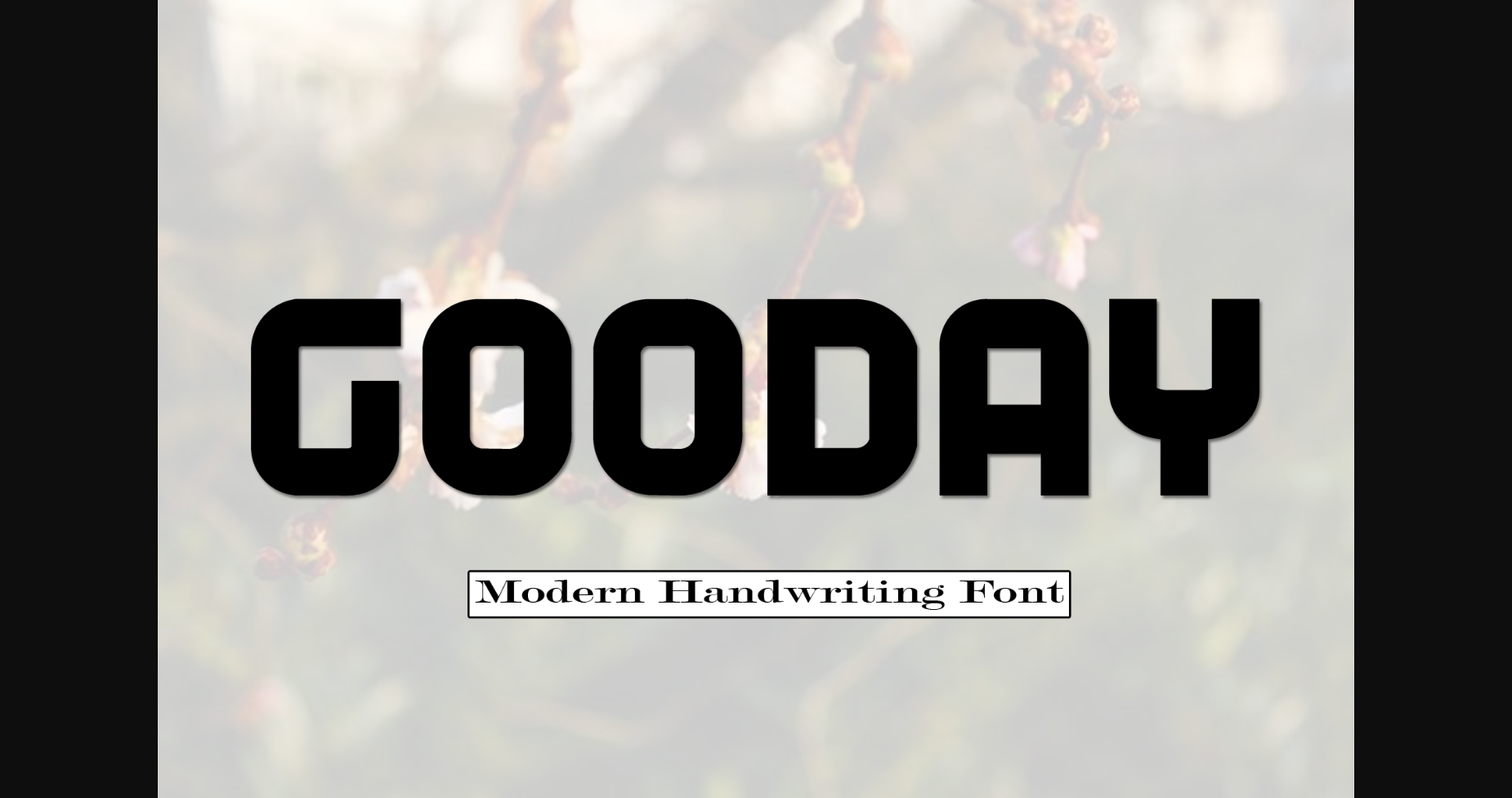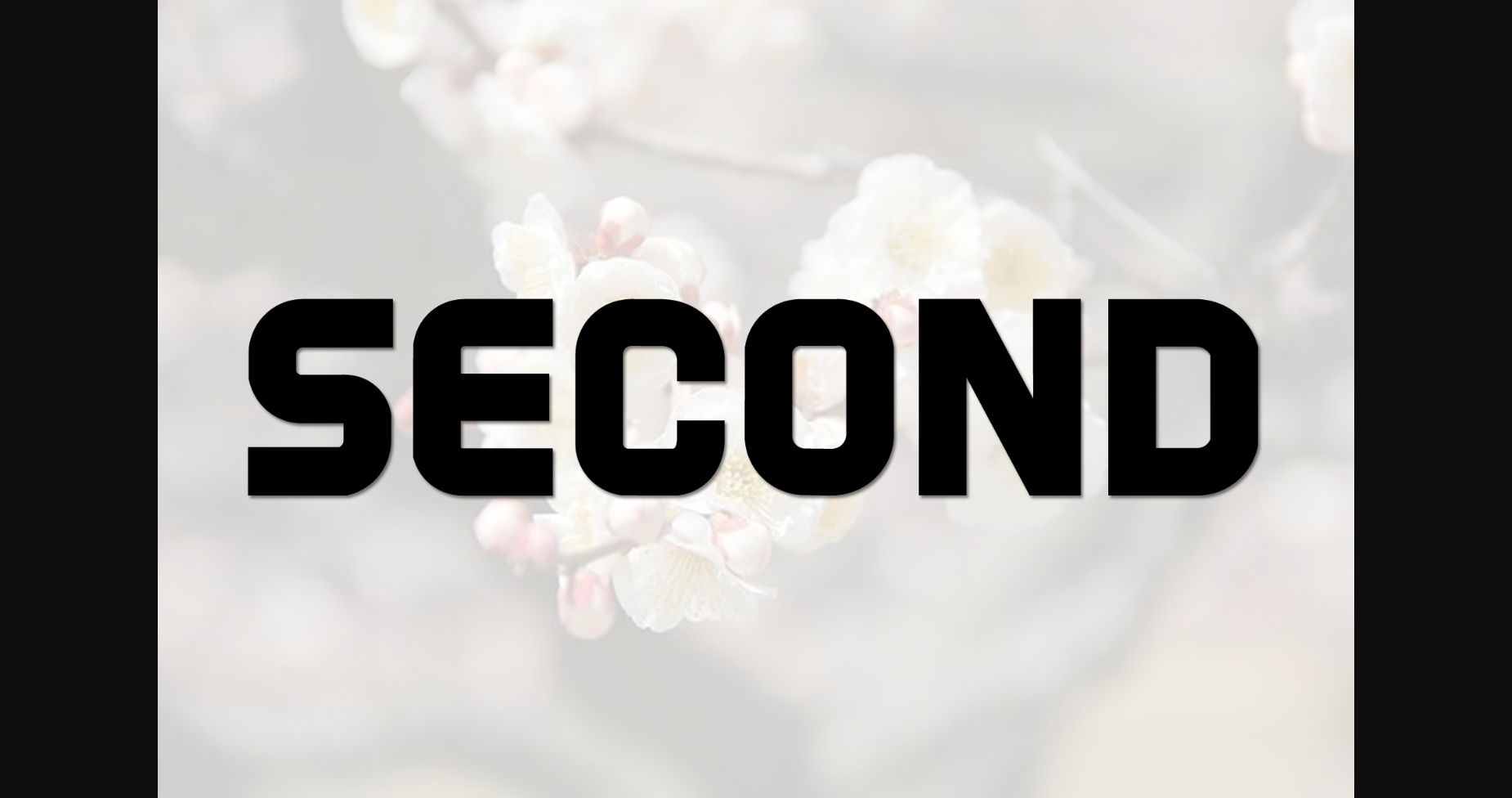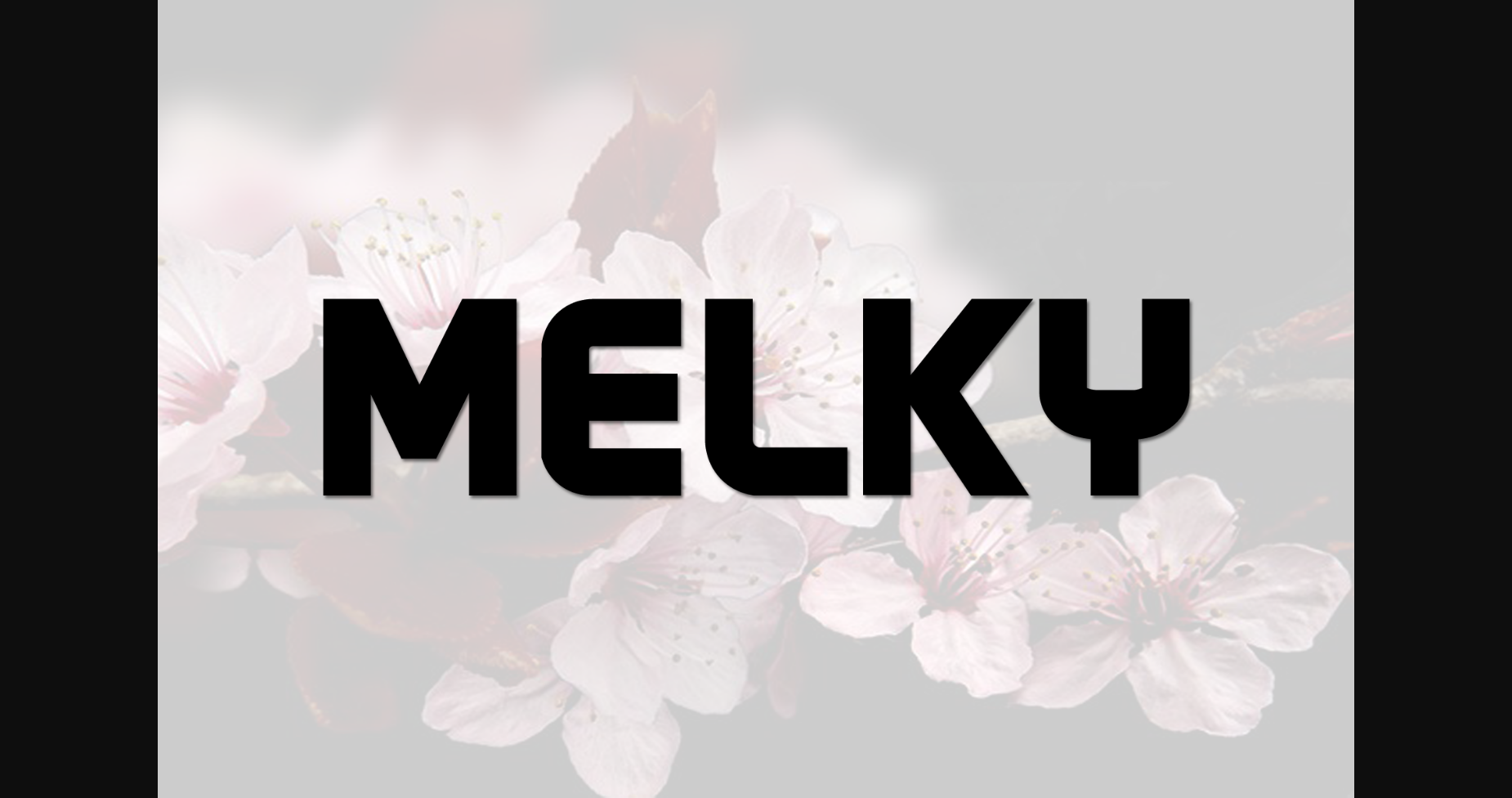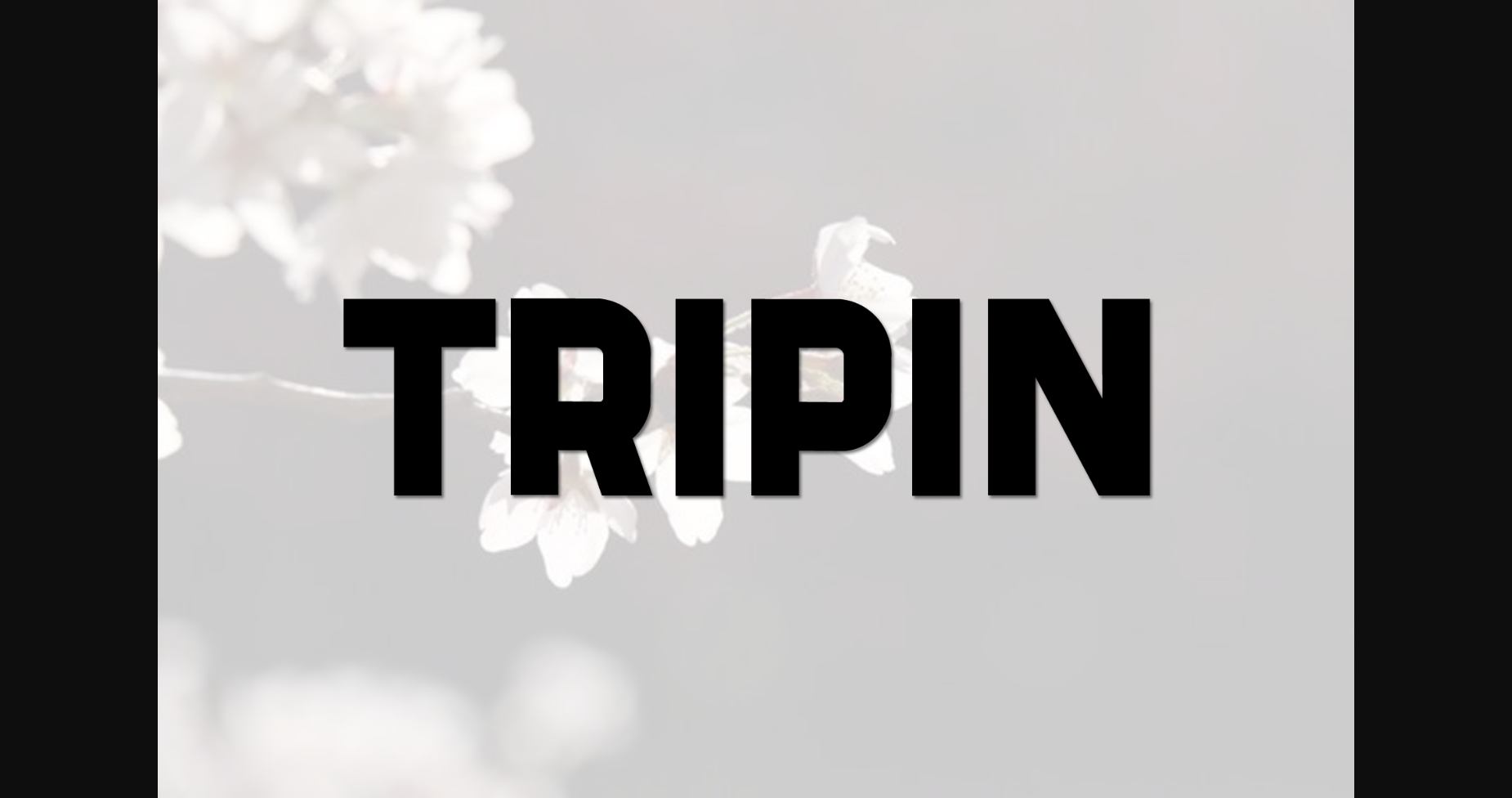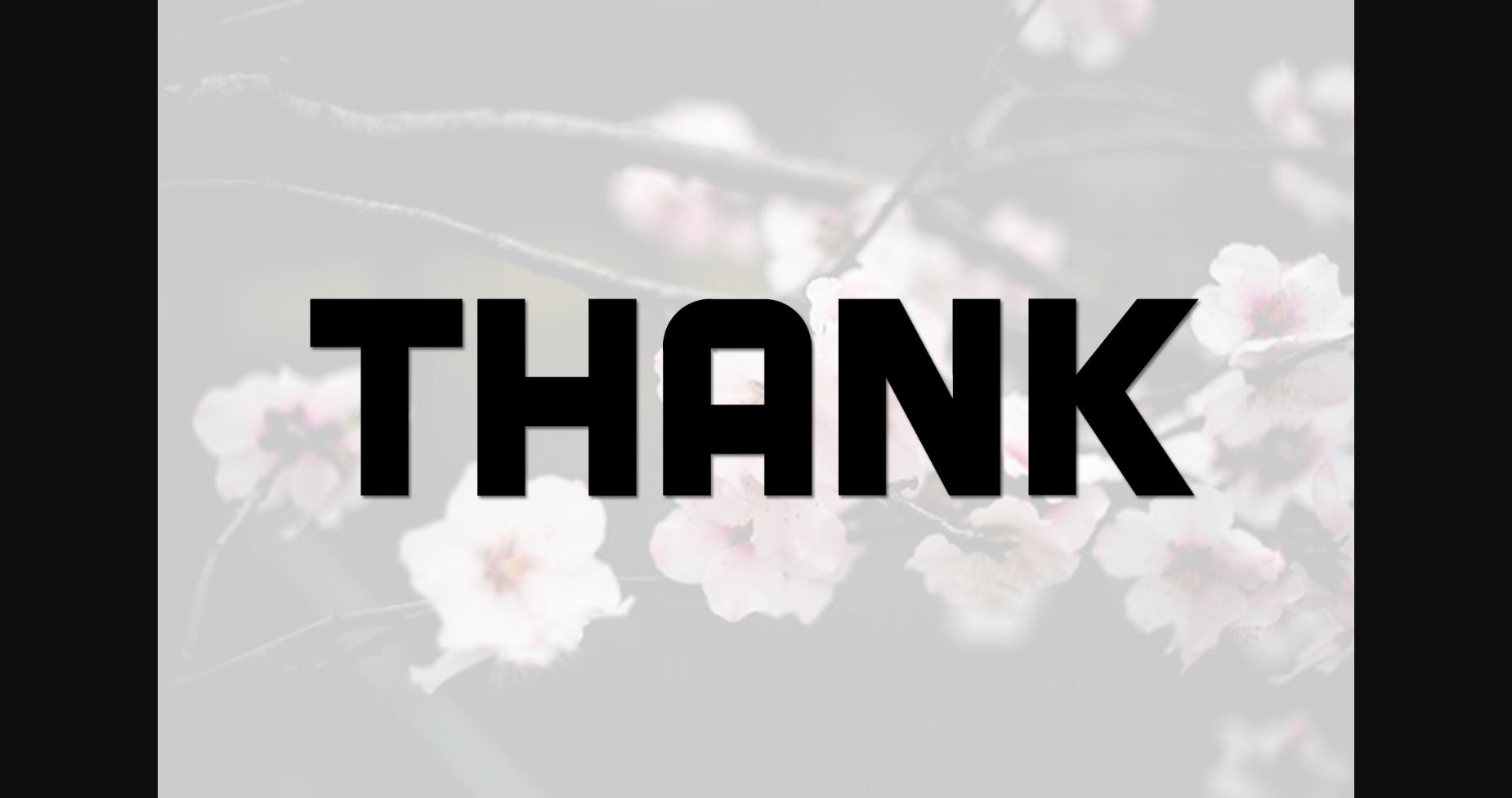
Gooday Font
About Gooday Font
Gooday is a stylish and very elegant handwritten font. It looks amazing on wedding invitations, thank you cards, quotes, greeting cards, logos, business cards, and any other design that calls for a handwritten touch.